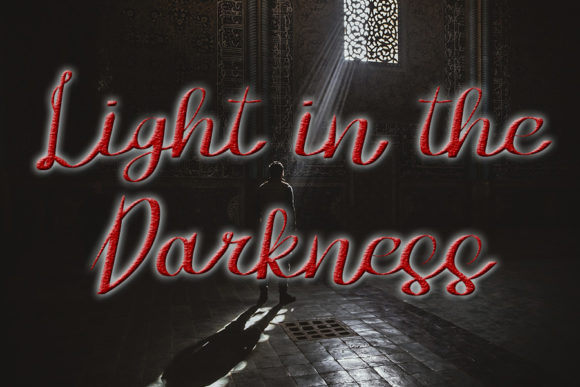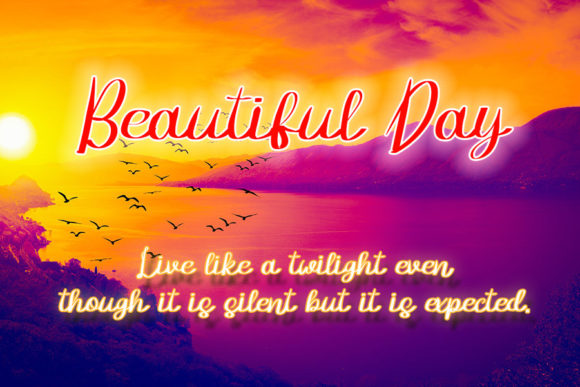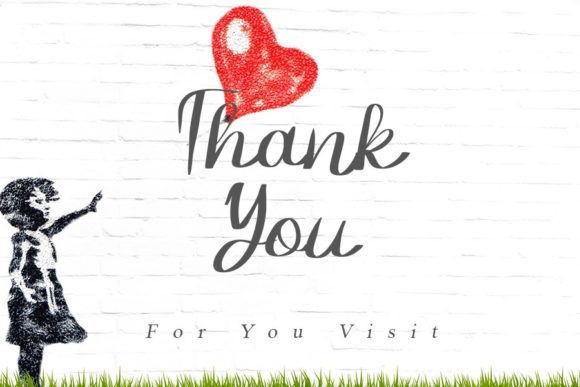
Birthday Candle Font
About Birthday Candle Font
Birthday Candle is a beautiful and refined script font that exudes class, elegance, and a modern look. With its stylish and sophisticated design, this font is the perfect choice for various applications including logos, branding, invitations, stationery, wedding designs, social media posts, and more.
The intricate details and flowing lines of Birthday Candle create a sense of beauty and refinement. Whether you’re designing a high-end brand identity, creating elegant wedding invitations, or crafting stylish social media graphics, this font will elevate your designs and leave a lasting impression.
The clean and refined appearance of Birthday Candle makes it suitable for both professional and creative projects. Its versatility allows it to adapt to various design styles, from minimalistic to luxurious, making it a valuable asset in your creative toolbox.
Whether used in print or digital mediums, Birthday Candle captures attention and conveys a sense of modern elegance. Its well-balanced characters and sophisticated flourishes create a visually pleasing and harmonious visual experience.
So, embrace the beauty and versatility of Birthday Candle. Let this font be the guiding light of your designs, adding a touch of class, elegance, and modernity. Incorporate it into your projects and witness how it enhances and elevates your creative vision.